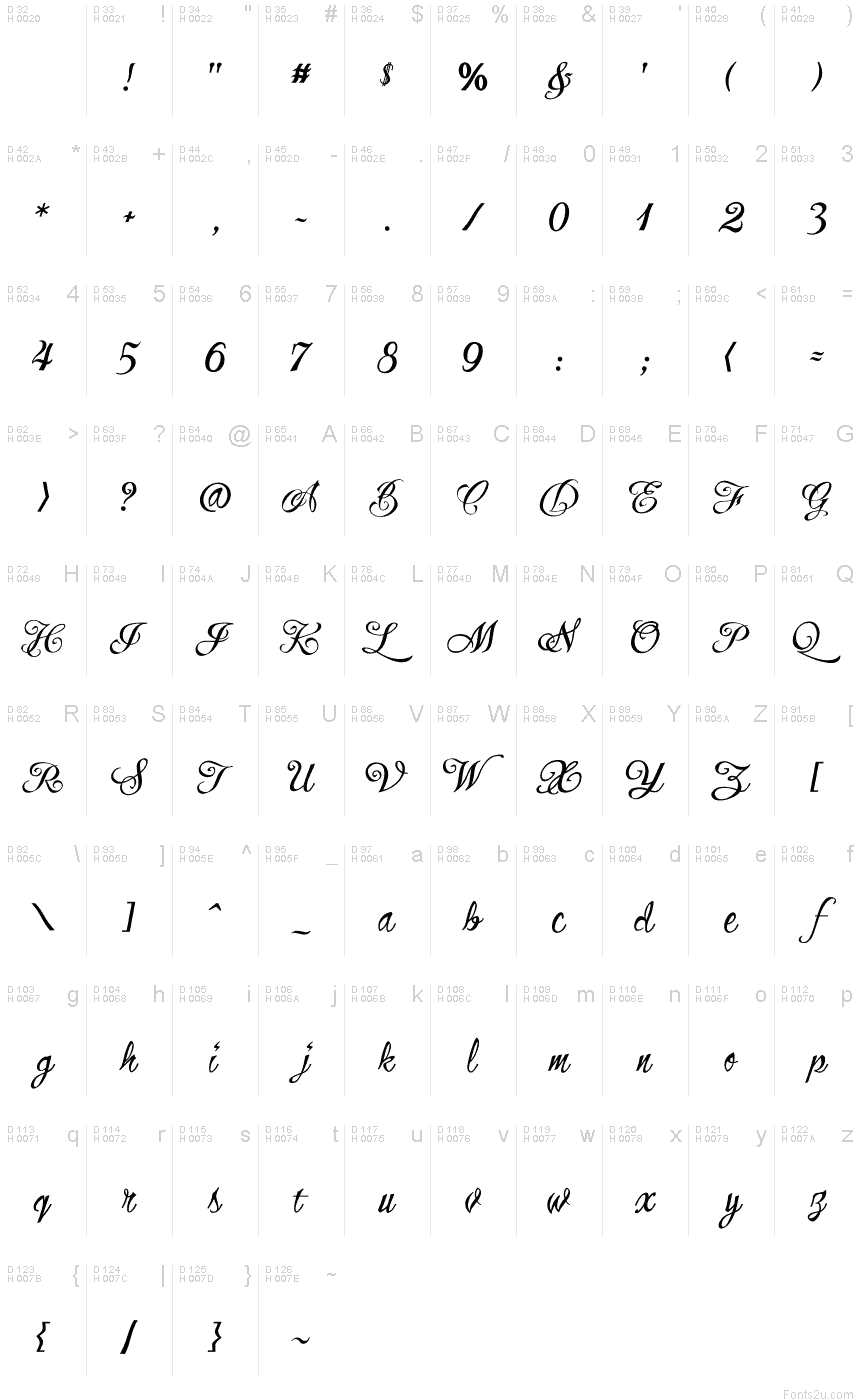
SkinDeep BB, by Nate Piekos, is a free calligraphic script font with a sleek tattoo-parlor elegance. The letters flow in long, looping strokes and sharp flicks, mixing delicate curves with a slightly dangerous edge that feels equal parts hand-lettered signwork and pinup-era flourish.
It fits naturally into poster titles, album art, beauty packaging, boutique branding, and magazine cover lines, where those sweeping joins can carry a short phrase on style alone. As a free font, it also works for monograms and title cards, especially when you want a single word or name to feel intimate, glossy, and a little theatrical.